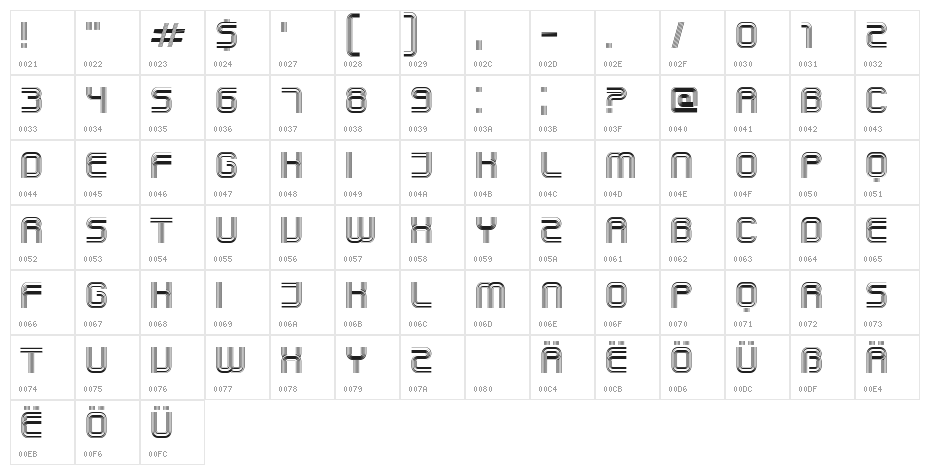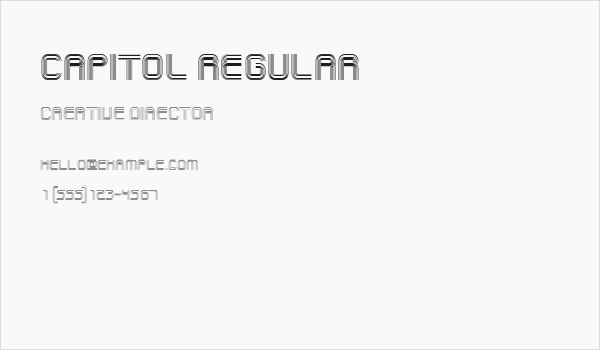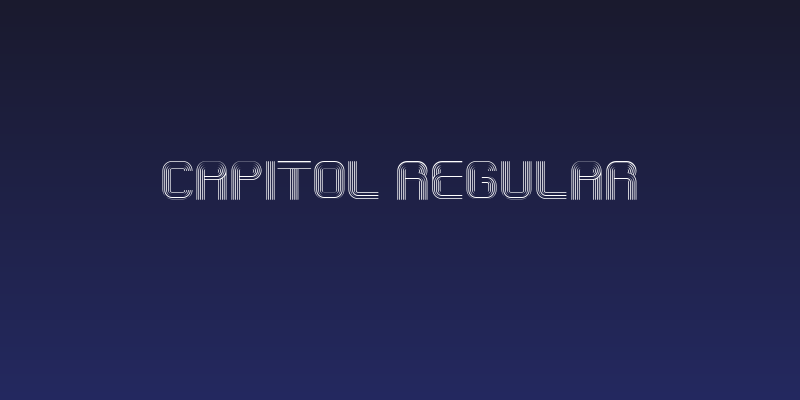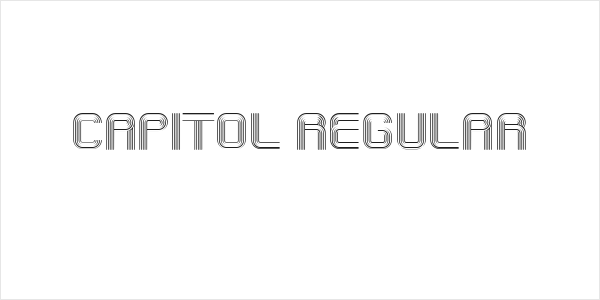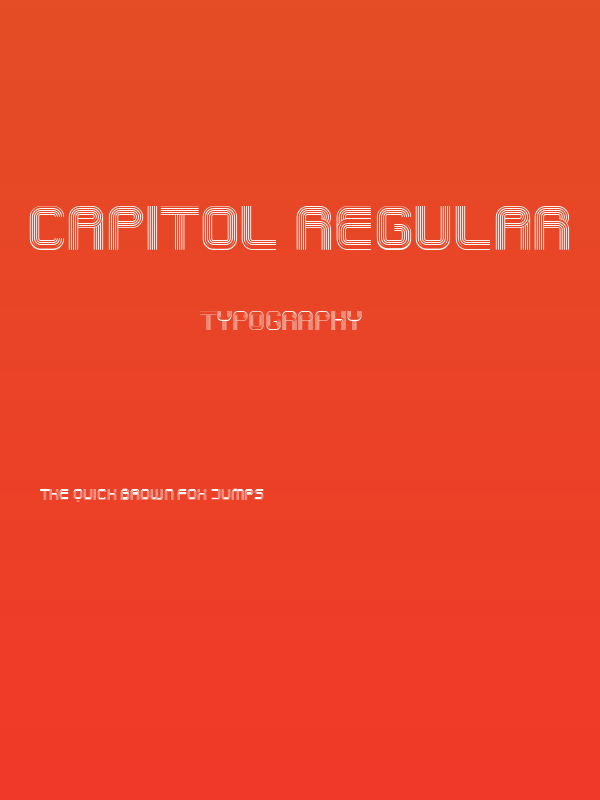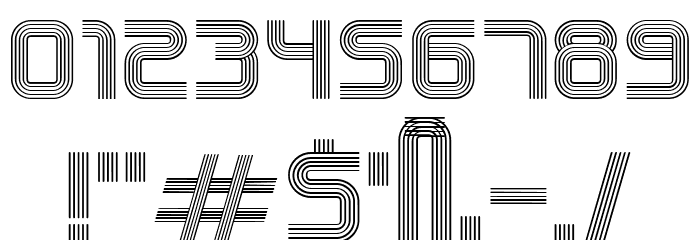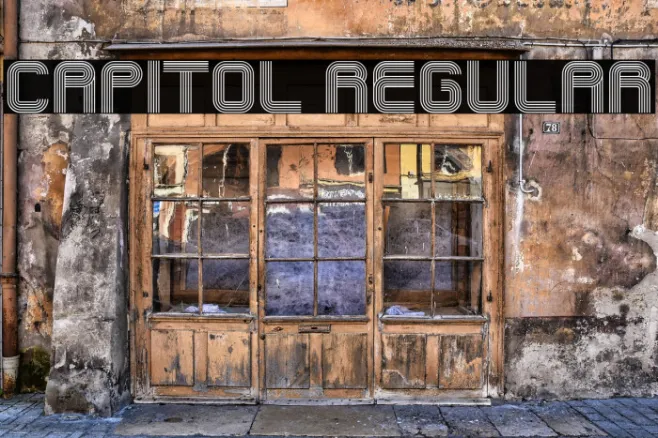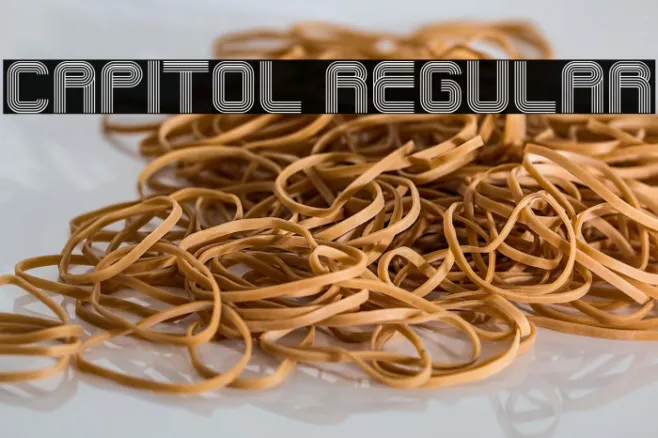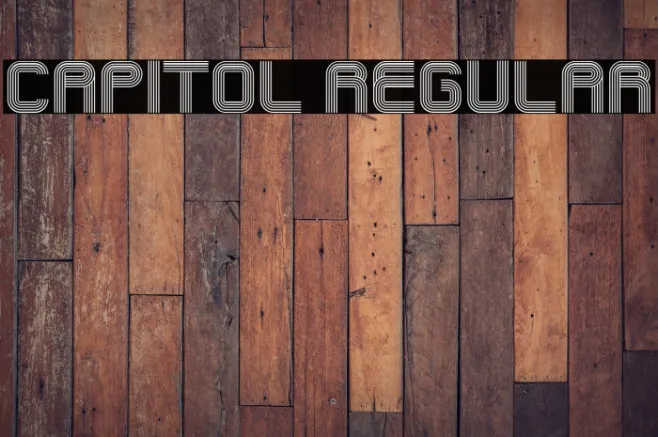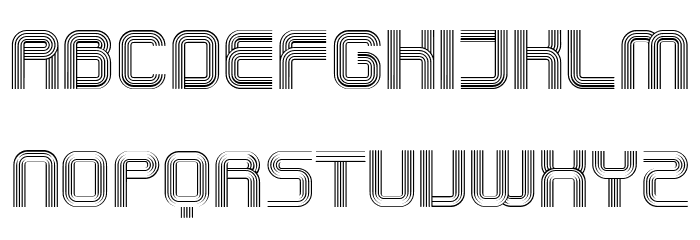
Capitol Regular Font
Capitol Regular Description
This font features a distinctive, futuristic design characterized by multiple parallel lines forming each character. The geometric structure and uniform line thickness give it a modern and technological appearance. The uppercase and lowercase letters maintain a consistent style, with rounded edges and a sense of symmetry. Numbers and special characters follow the same design principles, ensuring a cohesive look across all glyphs. The font's unique style makes it stand out, ideal for projects that require a bold and innovative visual impact.